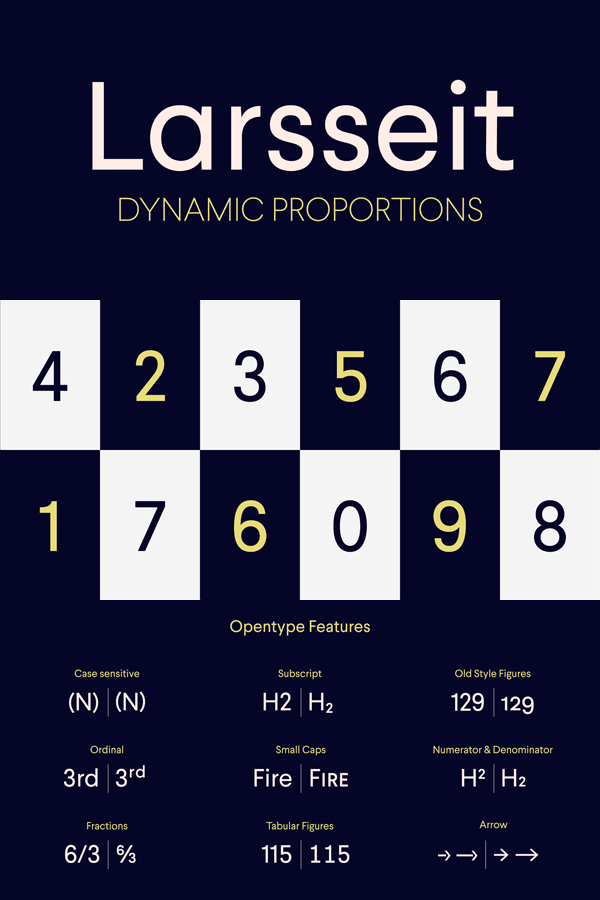
Larsseit – Sans Font Family.
The Larsseit font family from Type Dynamic is a sans serif typeface that combines low contrast with classical proportions. The font offers a clean shape, dynamic proportions and good readability also in small and long texts. Larsseit includes 6 weights (ranging from Thin to ExtraBold) plus italics and small caps. The font family includes several OpenType features such as Proportional Figure, Tabular Figures, Numerator, Superscript, Denominators, Scientific Inferiors, Subscript, Ordinals, Ligatures, and Fractions.